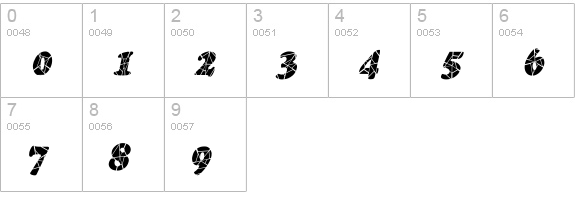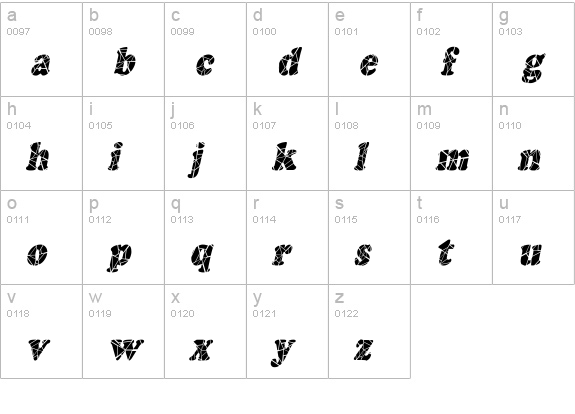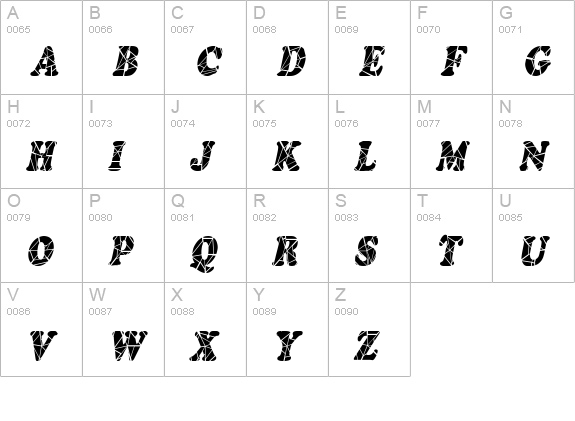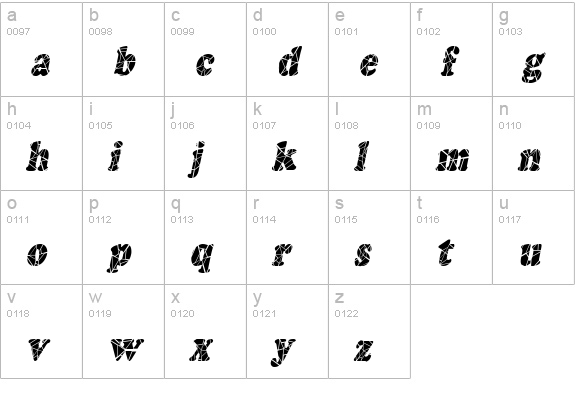
Marshmallow Cracked-Condensed Italic is a distinctive, condensed-width, italic variant in the Marshmallow typeface family \xE2\x80\x94 well suited to design and typography projects.
Marshmallow Cracked-Condensed Italic font is a unique and stylish typeface that adds a touch of elegance and sophistication to any design project. Its cracked texture and condensed letterforms create a visually striking effect, making this font perfect for attention-grabbing headlines, titles, and logos. With its italicized slant, Marshmallow Cracked-Condensed Italic font exudes a sense of movement and dynamism, adding a modern twist to traditional typography. The uneven cracks in the letters give the font a distinctive and edgy look, making it ideal for projects that require a bold and experimental aesthetic. This font is freely available to download at FontsMarket.com, making it accessible to designers and creatives of all levels. Whether you're a professional graphic designer or a hobbyist in need of a unique typeface for personal projects, Marshmallow Cracked-Condensed Italic font is the perfect choice. Its versatility allows it to be used across a wide range of design applications, from print materials such as posters, flyers, and brochures, to digital projects like websites, social media graphics, and presentations. The font's bold and eye-catching design ensures that your message will stand out and leave a lasting impression on your audience. Marshmallow Cracked-Condensed Italic font is designed with precision and attention to detail, guaranteeing a high-quality and visually appealing result in any context. Its smooth curves and clean lines make it easy to read, even at smaller sizes, ensuring legibility and clarity in all your designs. So, whether you're looking to add a touch of elegance to your branding, create eye-catching headlines, or simply experiment with a unique and stylish font, Marshmallow Cracked-Condensed Italic font is the perfect choice. And the best part is, it's freely available to download at FontsMarket.com, allowing you to unleash your creativity without any cost or restrictions.